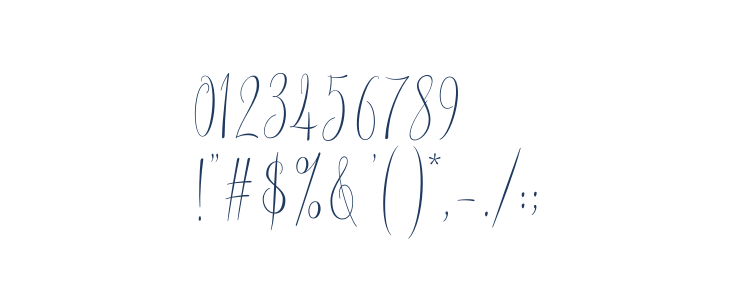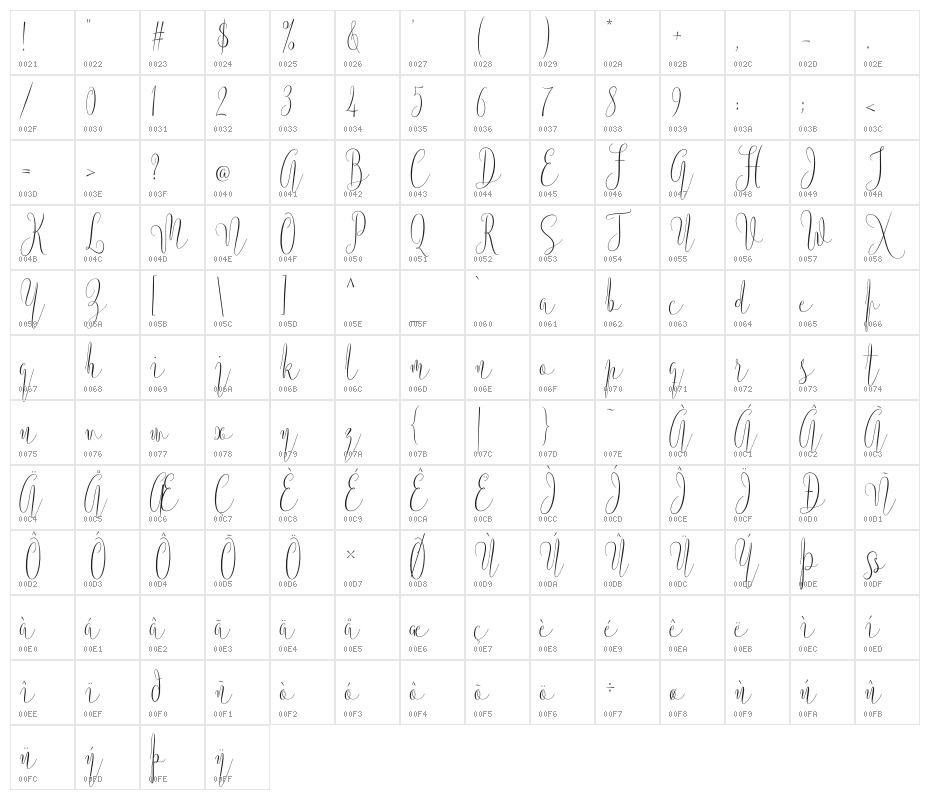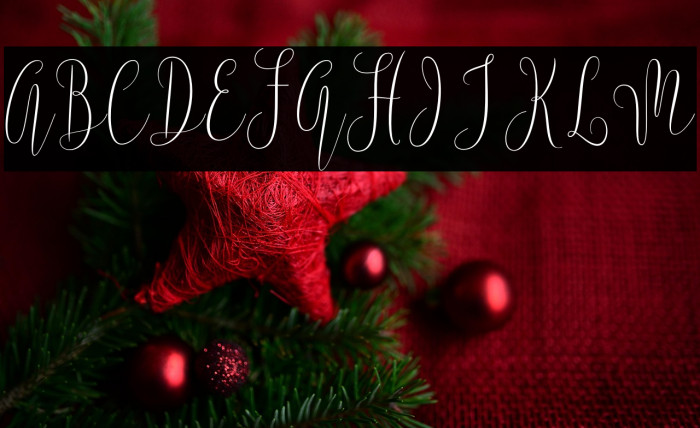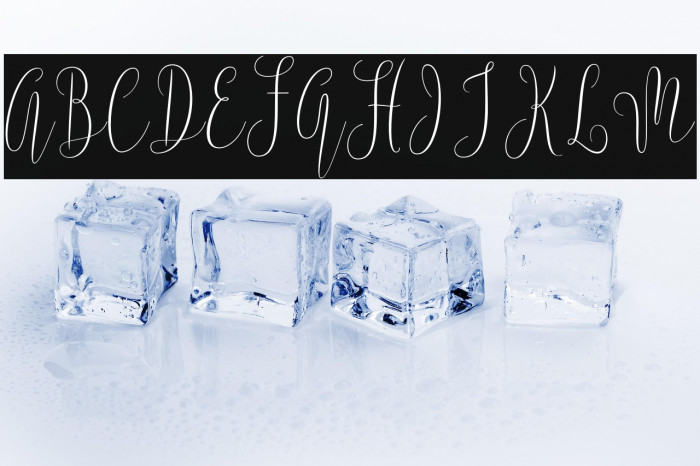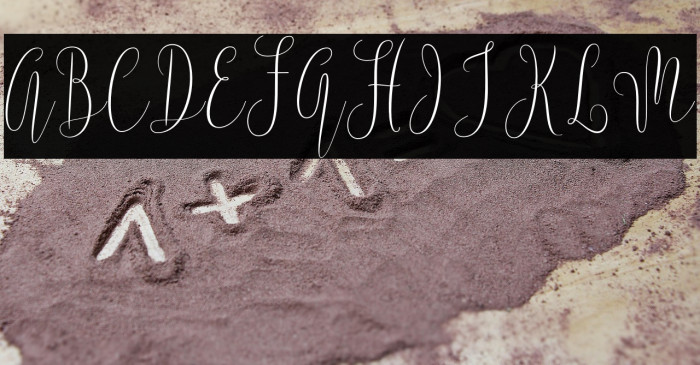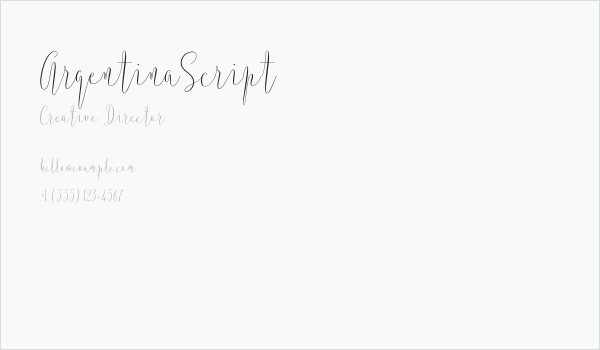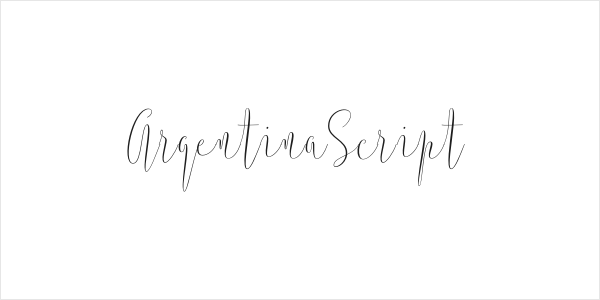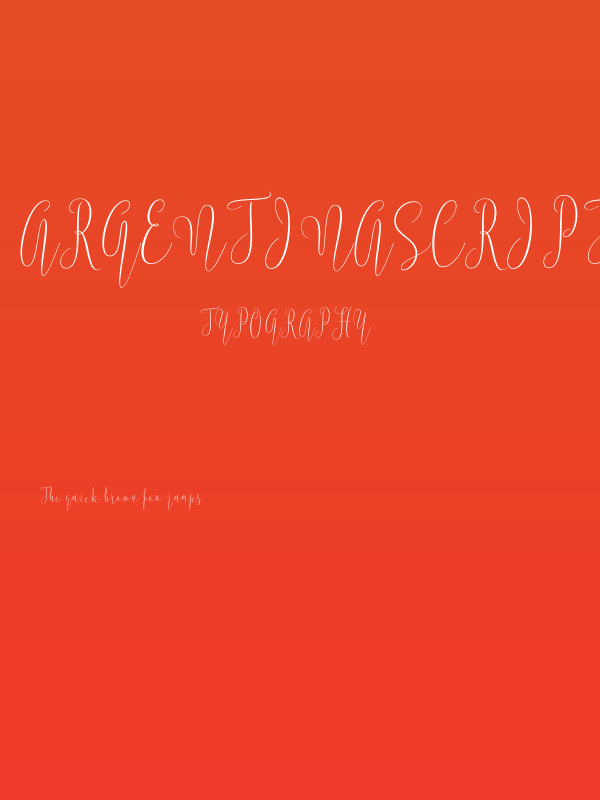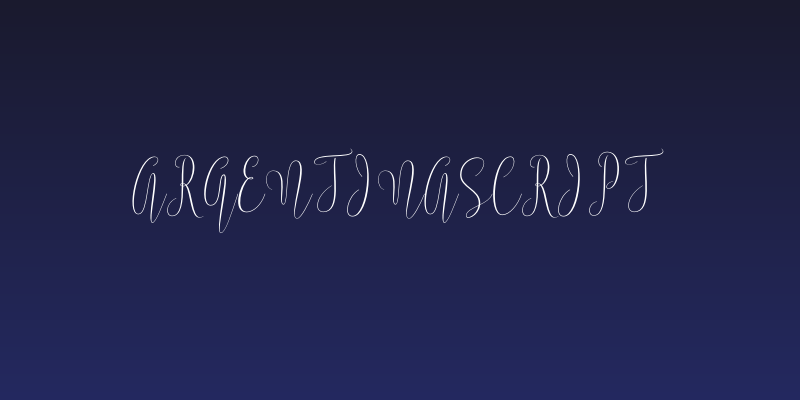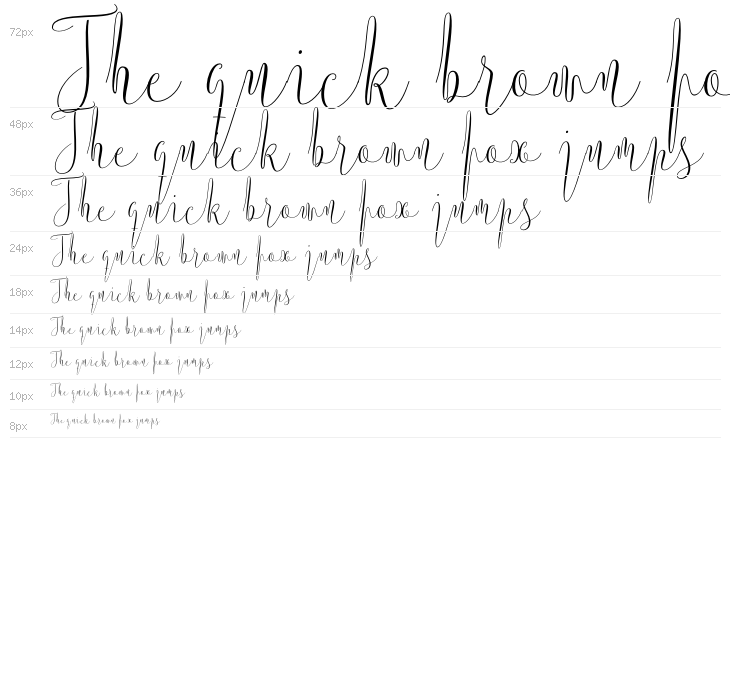
ArgentinaScript Font
ArgentinaScript Description
This elegant script font features a flowing, cursive style with high contrast between thick and thin strokes. The uppercase letters are tall and graceful, with sweeping curves and loops that give a sense of movement and fluidity. The lowercase letters maintain a consistent style, with elongated ascenders and descenders that add to the font's sophisticated appearance. The numerals are distinct and maintain the same elegant style, making them easily readable. Special characters are designed with the same attention to detail, ensuring a cohesive look across all glyphs.
| Proposed Projects | Ideal for wedding invitations, elegant branding, and high-end product packaging. |